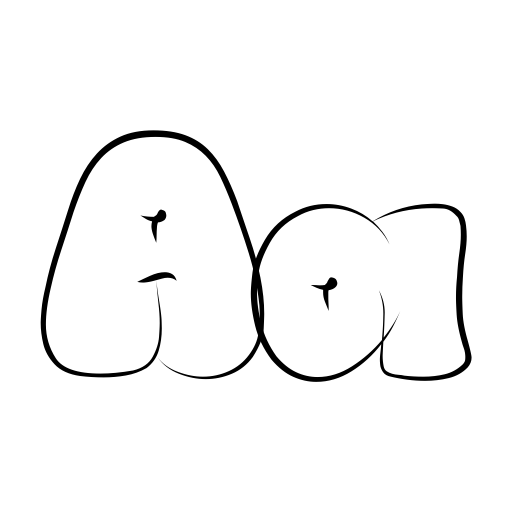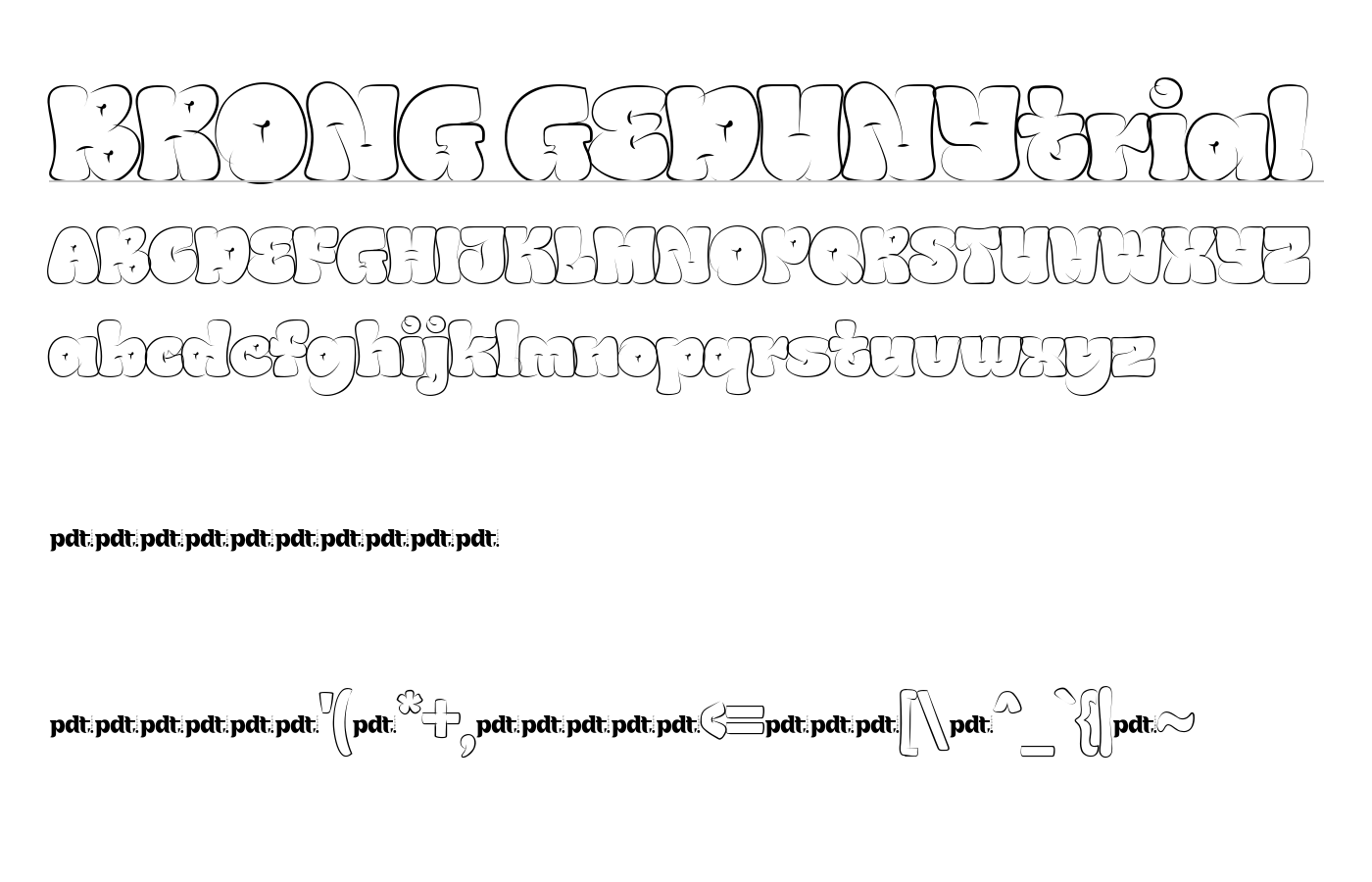
BRONG GEDUNYtrial is a playful, bold display font with a unique bubble-like outline that gives it a fun and whimsical character. Its thick, rounded shapes and soft, irregular contours make it perfect for designs aiming to convey a lighthearted, casual, and friendly vibe, ideal for creative projects, children’s materials, or eye-catching headlines. This font excels in contexts where a lively, approachable, and informal style is desired.
BRONG GEDUNYtrial Font
About BRONG GEDUNYtrial Font